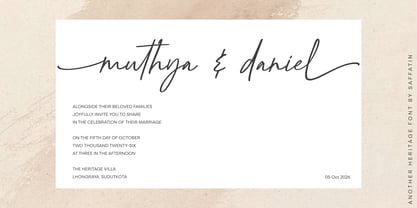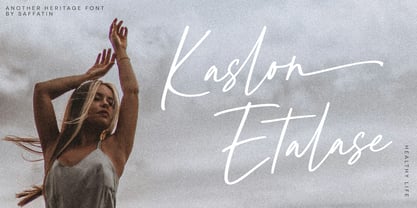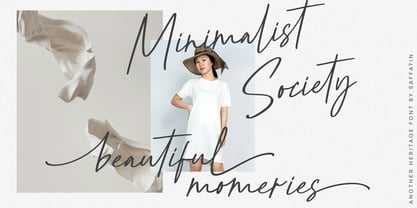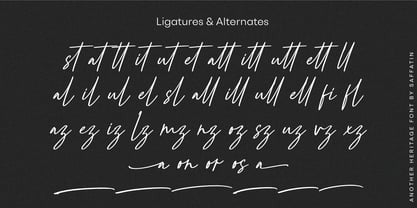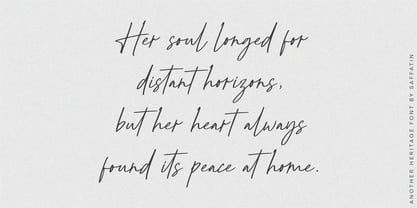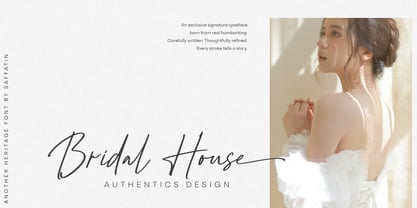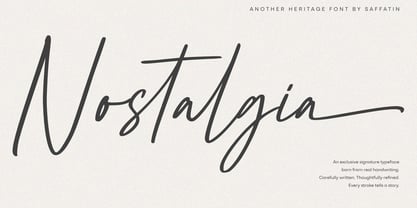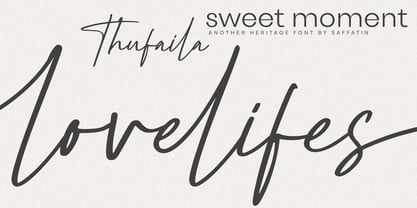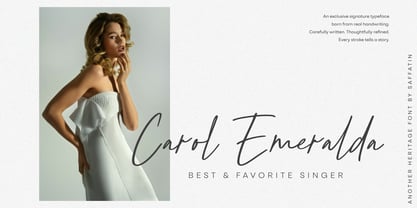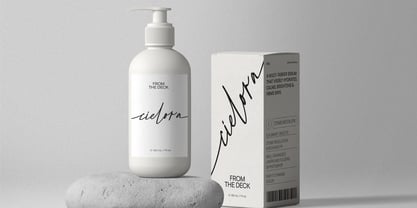
Another Heritage
by Saffatin.co
The Another Heritage Font Family was designed by Sarwo Edi, Saffatin and published by Saffatin.co. Another Heritage contains 1 styles.
Handmade with a real brush pen, this font embodies a signature taste that stands out. Its versatility allows it to be used across various projects, especially when an authentic and exclusive visual voice is needed. Unleash your creativity with Another Heritage. Designed to mimic natural brush movements and expressive strokes, this typeface exudes a personal and confident character. It adds warmth, originality, and a handcrafted feel to any design. Each letter is meticulously refined, ensuring smooth curves and balanced details, resulting in a texture that feels controlled yet retains its authentic brush personality. Perfect for branding, editorial design, and web applications, this font is a true testament to artisanal craftsmanship.
Designers: Sarwo Edi, Saffatin
Publisher: Saffatin.co
Foundry: Saffatin.co